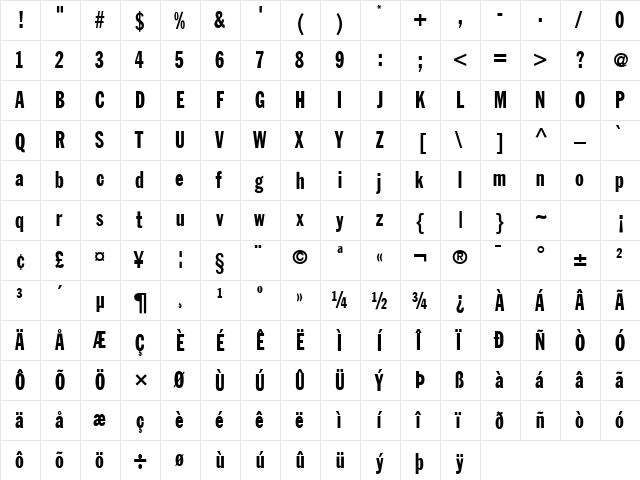
Franklin Gothic ExtraCondensed SSi Extra Condensed Font Preview
Design Context for Franklin Gothic ExtraCondensed SSi Typeface
Franklin Gothic ExtraCondensed SSi has the quiet confidence of well-executed sans-serif typography: versatile, unobtrusive, and dependable at any size. The condensed width makes it efficient for tight spaces without sacrificing legibility.
Font Pairing: Works well alongside a characterful serif or display font that can carry the expressive load while Franklin Gothic ExtraCondensed SSi handles the functional copy.
Pro Tip: Use Franklin Gothic ExtraCondensed SSi tightly set in headlines and banners — its condensed proportions make it ideal for maximum impact in minimum horizontal space.